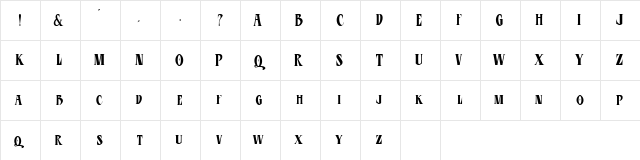
CD Esoteric Plain
Design Context for CD Esoteric Typeface
CD Esoteric offers clean, dependable letterforms without strong stylistic allegiance, making it a practical choice for designers who need flexibility.